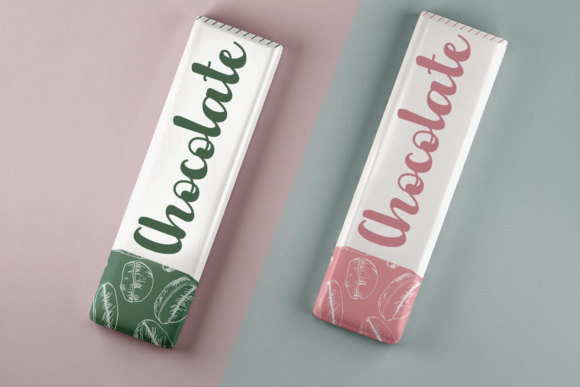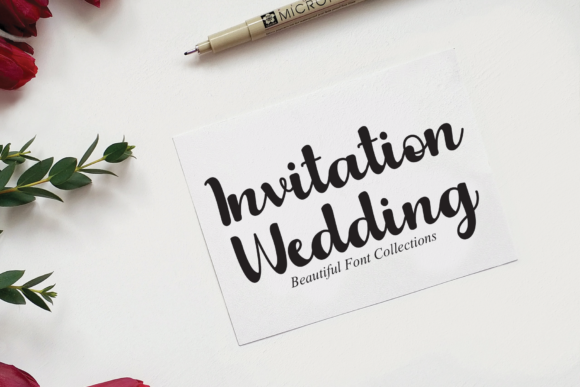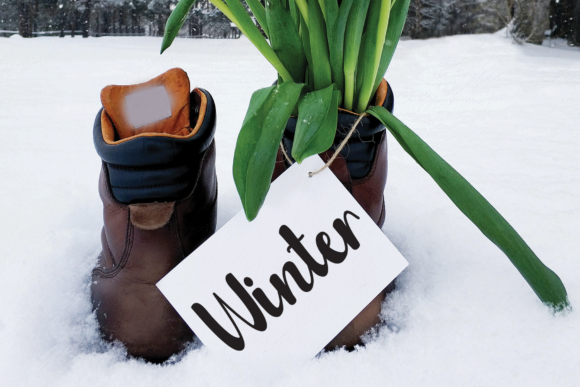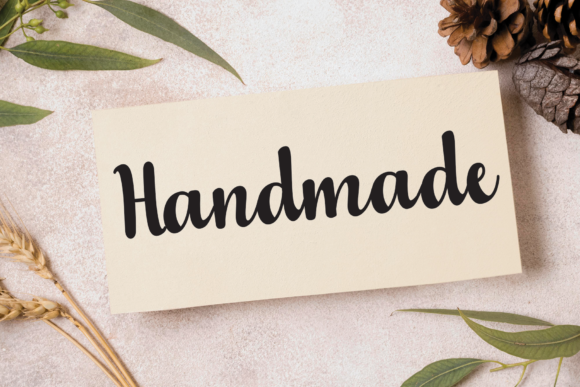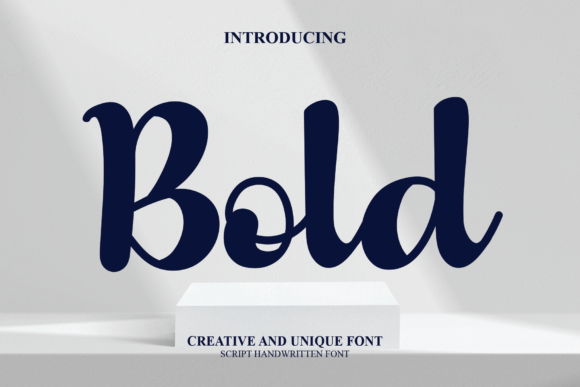
Introducing Bold Font: The Perfect Blend of Style and Versatility
In the world of typography, a good font can make all the difference in the success of a design project. Whether you’re a seasoned designer or a crafty DIY enthusiast, finding the right font can be a daunting task. That’s where Bold Font comes in – a trendy script font that embodies a contemporary feel and perfect form. In this article, we’ll dive into the features and benefits of Bold Font, and explore how it can elevate your designs to the next level.
The Perfect Balance: Not Too Thin, Not Too Bold
One of the standout features of Bold Font is its balanced and varied design. Unlike other fonts that may be too thin or too bold, Bold Font strikes the perfect chord. Its moderate weight makes it highly versatile, suitable for a wide range of applications, from digital designs to print materials. Whether you’re creating a logo, brochure, or social media graphic, Bold Font is the perfect choice.
Contemporary Feel and Perfect Form
Bold Font boasts a modern and sleek aesthetic that’s sure to turn heads. Its clean lines, flowing curves, and carefully crafted letterforms create a visually stunning effect that’s both elegant and sophisticated. The font’s perfect form ensures that it remains legible, even at smaller sizes, making it ideal for body text and captions.
Enhance the Beauty of Your Projects
With Bold Font, you can add a touch of luxury and sophistication to your designs. Its unique character and versatility make it perfect for a variety of projects, including:
- Logos and branding materials: Create a lasting impression with a bold and eye-catching logo that showcases your brand’s personality.
- Print materials: Elevate your brochures, flyers, and posters with a font that’s both stylish and easy to read.
- Digital designs: Add a professional touch to your website, social media graphics, and email newsletters with Bold Font’s clean and modern aesthetic.
Key Features of Bold Font
So, what sets Bold Font apart from other fonts? Here are some of its key features:
- Trendy script font with a contemporary feel
- Balanced and varied design, perfect for a wide range of applications
- Moderate weight, not too thin or too bold
- Clean lines, flowing curves, and carefully crafted letterforms
- Perfect form ensures legibility, even at smaller sizes
Tips for Using Bold Font
To get the most out of Bold Font, here are some tips to keep in mind:
- Use it as a headline font to add emphasis and draw attention.
- Pair it with a complementary font for body text to create visual interest.
- Experiment with different colors and textures to add depth and dimension.
- Don’t be afraid to get creative and try out new and innovative uses for Bold Font.
In conclusion, Bold Font is a versatile and stylish script font that’s perfect for designers and crafters looking to elevate their projects. With its balanced and varied design, contemporary feel, and perfect form, Bold Font is sure to become a go-to font in your collection. Whether you’re working on a logo, brochure, or social media graphic, Bold Font is the perfect choice. So why wait? Give Bold Font a try today and see the difference it can make in your designs!